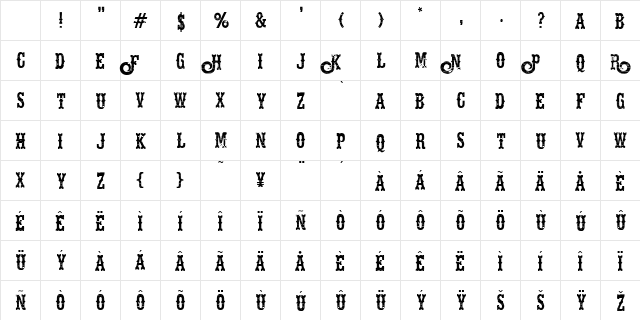
Hells Rider Decay is a composed and adaptable typeface that performs quietly and consistently across a wide range of design contexts.
Pro Tip: Use Hells Rider Decay in both headline and body roles to test its range before committing to a single application.